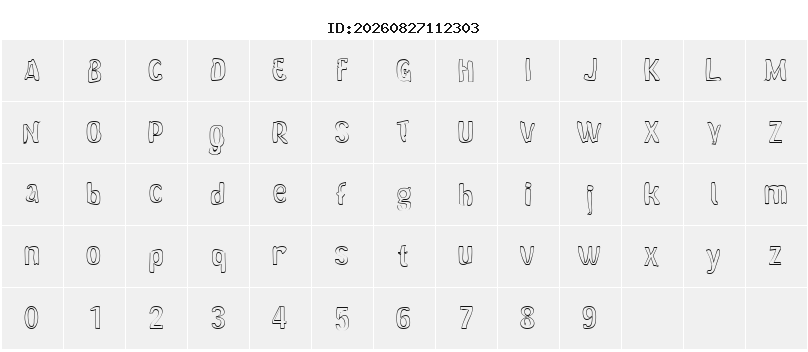
258-CAI978 Preview
• Font Name: 258-CAI978
About 258-CAI978.ttf
258-CAI978.ttf is a modern, elegant sans-serif font designed for ultimate readability and visual harmony. Perfect for branding, headlines, web design, and print materials.